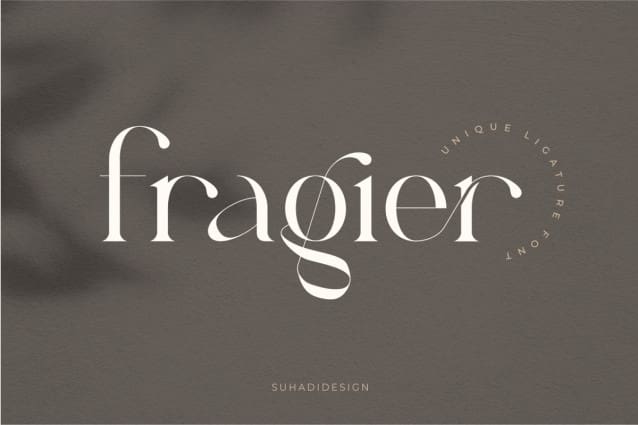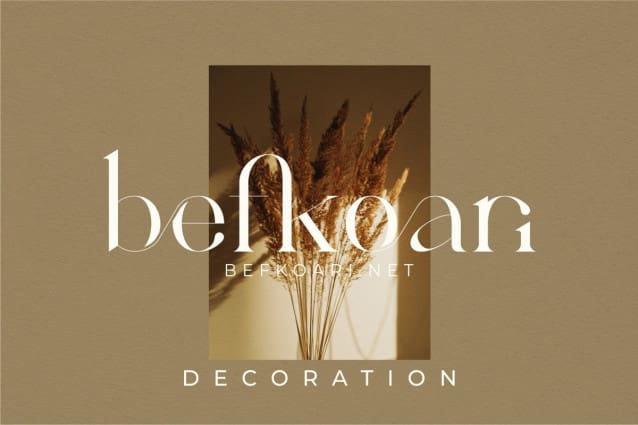
Fragier Font
Fragier font is a very beautiful and popular serif font with many ligatures, comes with a modern style to become a market favorite. We keep this font looking elegant, classy, ​​easy to read, stylish, attractive and easy to use. FragierFont is a great choice for beauty brands, magazines, newspapers, books, brand names, branding, brands, quotes, album covers and other projects. Fragier fonts are here to take your designs to the next level.